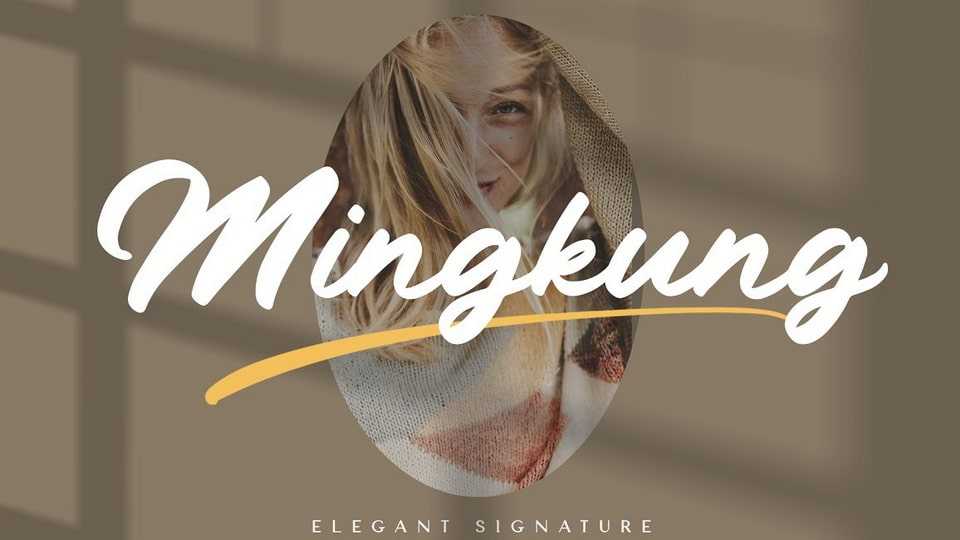
Download Mingkung font, a clean brush typeface. The shape of the Minkung is modern and unique and the writing style is very natural.
Designer: Wildan Type